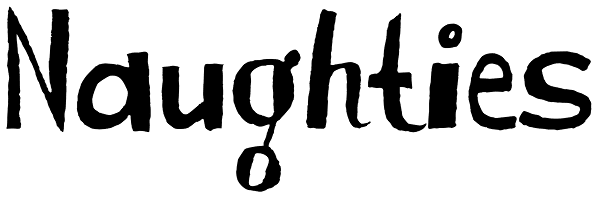
Naughties
The Naughties font was meant to be a happy new typestyle for a naughty new decade. It turned into a neo-classic FUN font. This font is sent to you from the light-hearted, long-ago past of 1999 in an effort to promote a new name for the current...